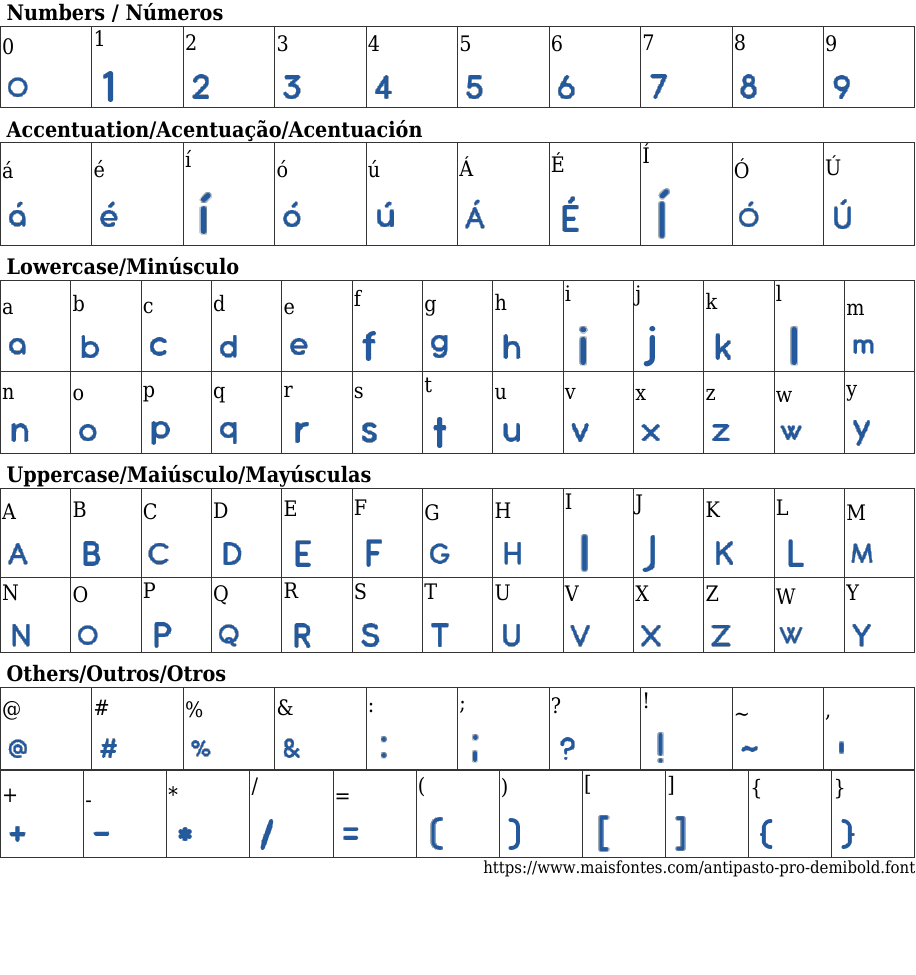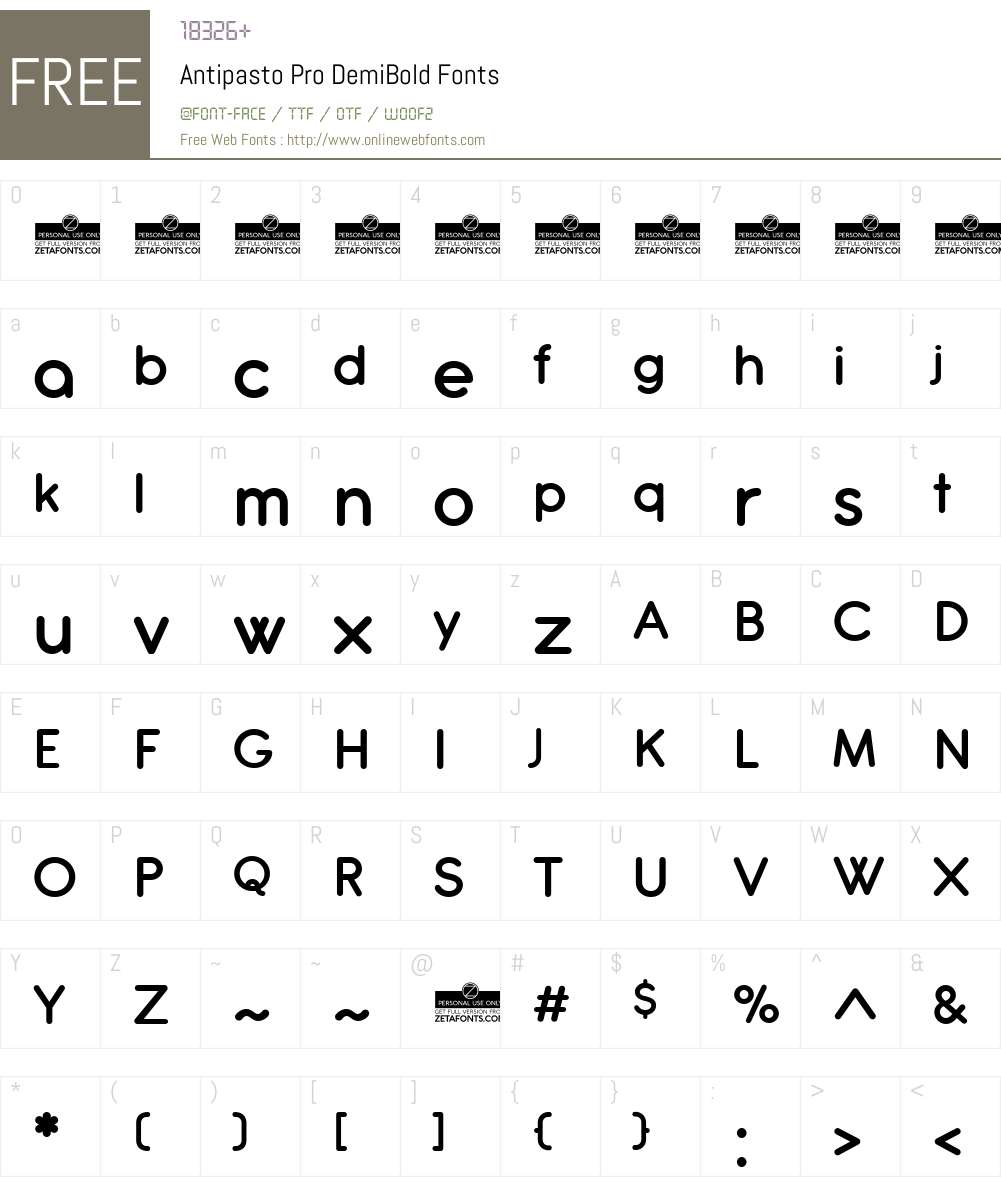
Antipasto Demibold Font . Download antipasto pro font family · free for personal use · this trial font is totally free for noncommercial uses. The original family of three weights has been. Antipasto is a geometric sans serif font designed by cosimo lorenzo pancini. Download and install the antipasto free font family by zetafonts as well as test. ️ this font has been downloaded 10,000+ times. Download and install the antipasto pro demibold font for free from ffonts.net. Antipasto is a geometric sans serif font designed by cosimo lorenzo pancini. The original family of three weights has been revised and expanded in 2017 with. Antipasto pro demibold regular font by tom jerry. Designed by cosimo lorenzo pancini, antipasto is a sans serif and dingbat font family.
The original family of three weights has been revised and expanded in 2017 with. Antipasto pro demibold regular font by tom jerry. ️ this font has been downloaded 10,000+ times. The original family of three weights has been. Antipasto is a geometric sans serif font designed by cosimo lorenzo pancini. Download and install the antipasto free font family by zetafonts as well as test. Download and install the antipasto pro demibold font for free from ffonts.net. Download antipasto pro font family · free for personal use · this trial font is totally free for noncommercial uses. Designed by cosimo lorenzo pancini, antipasto is a sans serif and dingbat font family. Antipasto is a geometric sans serif font designed by cosimo lorenzo pancini.
Antipasto Demibold Font The original family of three weights has been. Download and install the antipasto pro demibold font for free from ffonts.net. The original family of three weights has been. Antipasto is a geometric sans serif font designed by cosimo lorenzo pancini. ️ this font has been downloaded 10,000+ times. Download and install the antipasto free font family by zetafonts as well as test. The original family of three weights has been revised and expanded in 2017 with. Antipasto is a geometric sans serif font designed by cosimo lorenzo pancini. Designed by cosimo lorenzo pancini, antipasto is a sans serif and dingbat font family. Antipasto pro demibold regular font by tom jerry. Download antipasto pro font family · free for personal use · this trial font is totally free for noncommercial uses.
Freefont Antipasto Pro Demi Bold Familie ist, Designer, Design studio Antipasto Demibold Font Antipasto is a geometric sans serif font designed by cosimo lorenzo pancini. Antipasto is a geometric sans serif font designed by cosimo lorenzo pancini. Download and install the antipasto free font family by zetafonts as well as test. The original family of three weights has been. Download and install the antipasto pro demibold font for free from ffonts.net. Download antipasto. Antipasto Demibold Font.
Antipasto Fonts Shmonts Antipasto Demibold Font Antipasto pro demibold regular font by tom jerry. ️ this font has been downloaded 10,000+ times. Download antipasto pro font family · free for personal use · this trial font is totally free for noncommercial uses. Antipasto is a geometric sans serif font designed by cosimo lorenzo pancini. Designed by cosimo lorenzo pancini, antipasto is a sans serif and dingbat. Antipasto Demibold Font.
Antipasto Pro DemiBold Free Font Download MaisFontes Antipasto Demibold Font Download antipasto pro font family · free for personal use · this trial font is totally free for noncommercial uses. The original family of three weights has been. ️ this font has been downloaded 10,000+ times. The original family of three weights has been revised and expanded in 2017 with. Antipasto is a geometric sans serif font designed by cosimo. Antipasto Demibold Font.
Antipasto Pro DemiBold Font xFonts.pro Antipasto Demibold Font Antipasto is a geometric sans serif font designed by cosimo lorenzo pancini. ️ this font has been downloaded 10,000+ times. Antipasto is a geometric sans serif font designed by cosimo lorenzo pancini. Download and install the antipasto free font family by zetafonts as well as test. Download antipasto pro font family · free for personal use · this trial font. Antipasto Demibold Font.
Antipasto Font Download Fonts4Free Antipasto Demibold Font Antipasto pro demibold regular font by tom jerry. Download antipasto pro font family · free for personal use · this trial font is totally free for noncommercial uses. Designed by cosimo lorenzo pancini, antipasto is a sans serif and dingbat font family. The original family of three weights has been revised and expanded in 2017 with. Download and install the. Antipasto Demibold Font.
Antipasto Pro Font Family Download Free for Desktop & font Antipasto Demibold Font Download antipasto pro font family · free for personal use · this trial font is totally free for noncommercial uses. The original family of three weights has been revised and expanded in 2017 with. ️ this font has been downloaded 10,000+ times. Antipasto is a geometric sans serif font designed by cosimo lorenzo pancini. Antipasto is a geometric sans serif. Antipasto Demibold Font.
Antipasto Pro Font is a geometric sans serif font designed by Cosimo Antipasto Demibold Font The original family of three weights has been. Antipasto is a geometric sans serif font designed by cosimo lorenzo pancini. Download and install the antipasto free font family by zetafonts as well as test. ️ this font has been downloaded 10,000+ times. Download and install the antipasto pro demibold font for free from ffonts.net. Download antipasto pro font family ·. Antipasto Demibold Font.
Antipasto Pro DemiBold Font xFonts.pro Antipasto Demibold Font ️ this font has been downloaded 10,000+ times. The original family of three weights has been. Designed by cosimo lorenzo pancini, antipasto is a sans serif and dingbat font family. Download and install the antipasto free font family by zetafonts as well as test. Antipasto is a geometric sans serif font designed by cosimo lorenzo pancini. Download antipasto pro font. Antipasto Demibold Font.
Download free Antipasto Pro DemiBold Regular font Zetafonts Antipasto Demibold Font ️ this font has been downloaded 10,000+ times. Download antipasto pro font family · free for personal use · this trial font is totally free for noncommercial uses. Antipasto is a geometric sans serif font designed by cosimo lorenzo pancini. The original family of three weights has been revised and expanded in 2017 with. Designed by cosimo lorenzo pancini, antipasto. Antipasto Demibold Font.